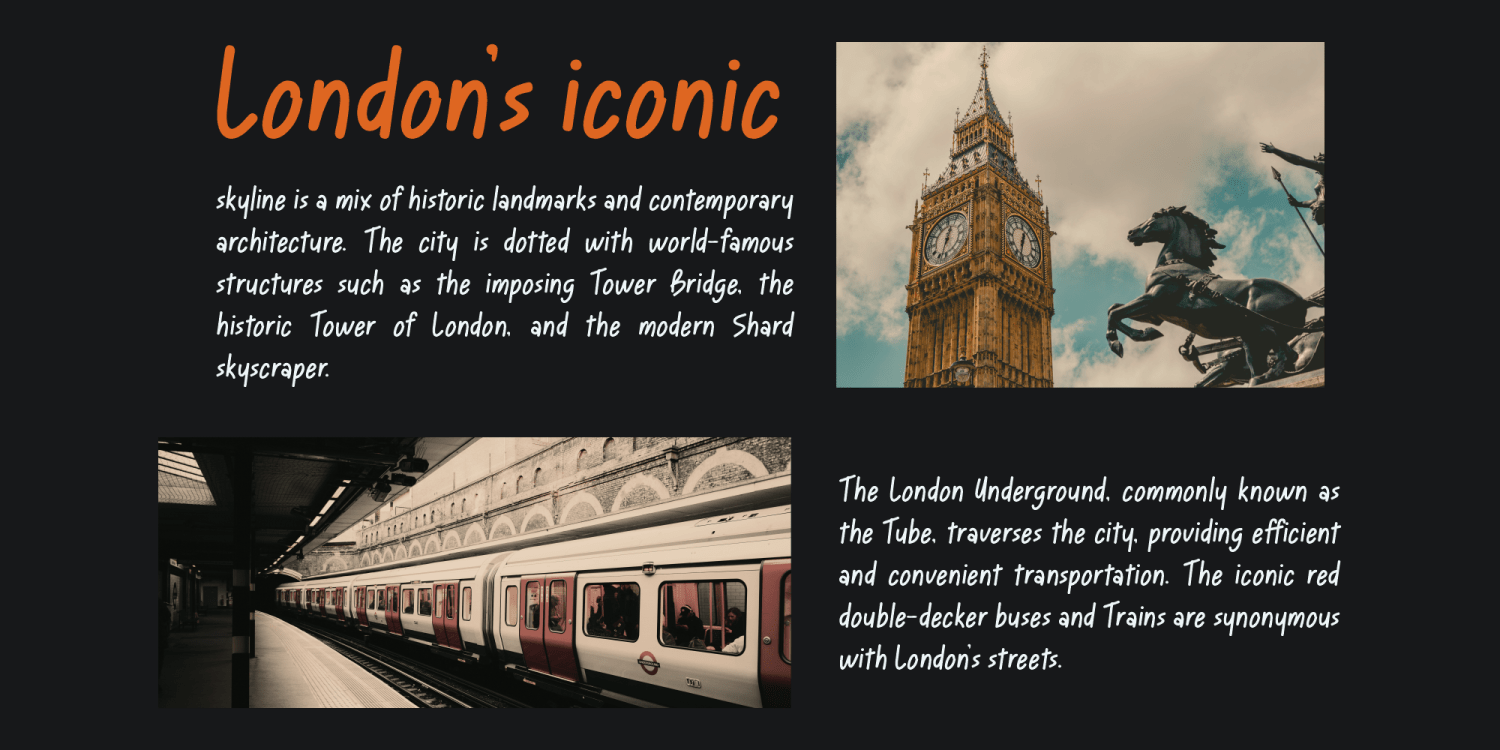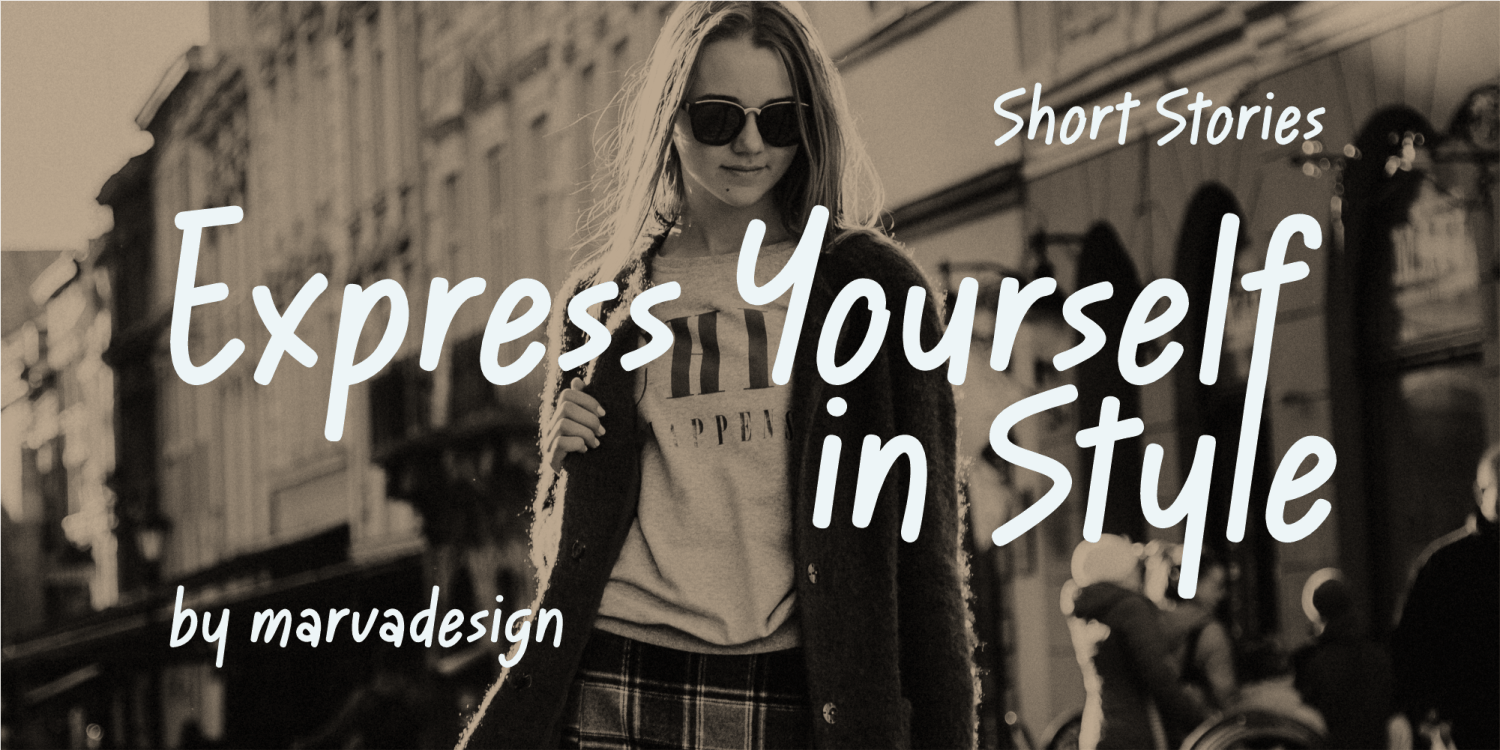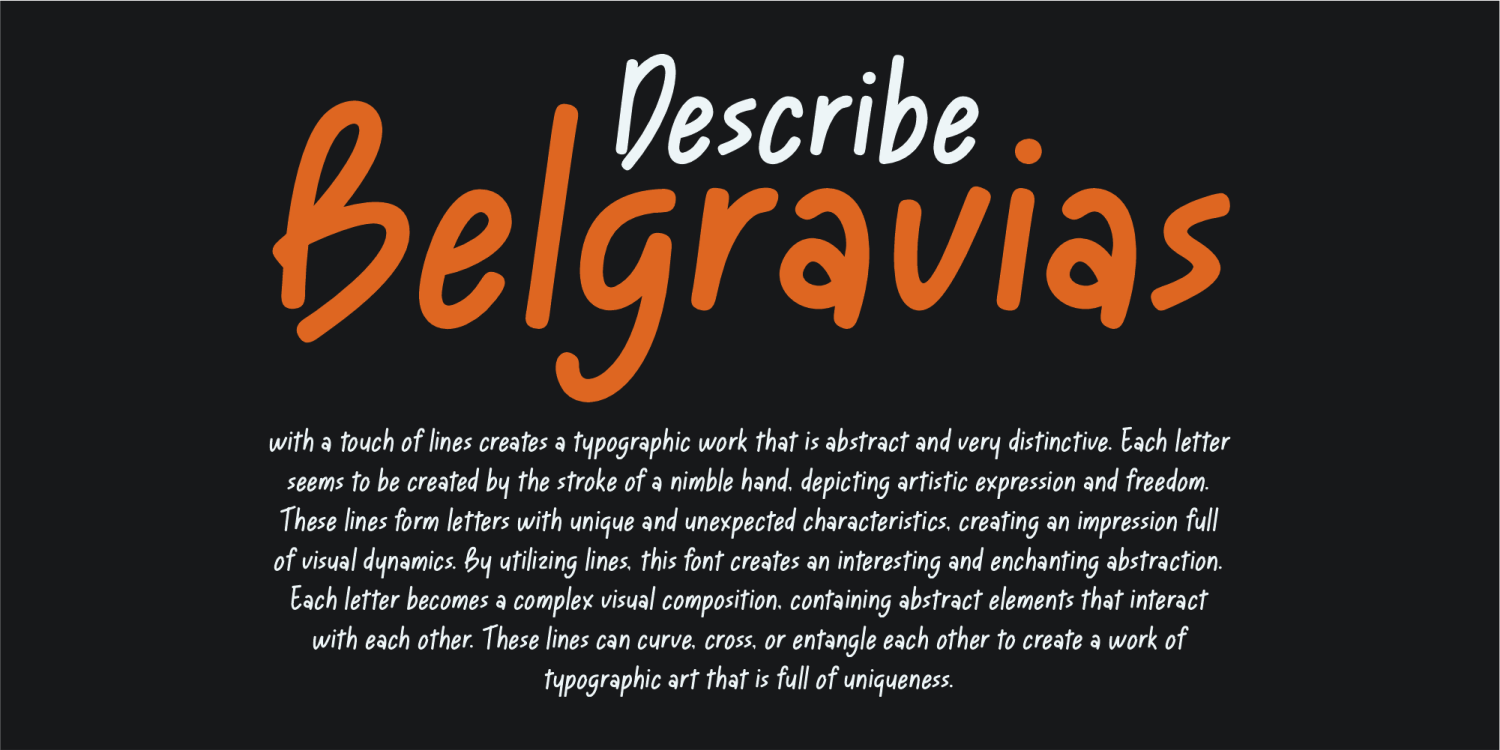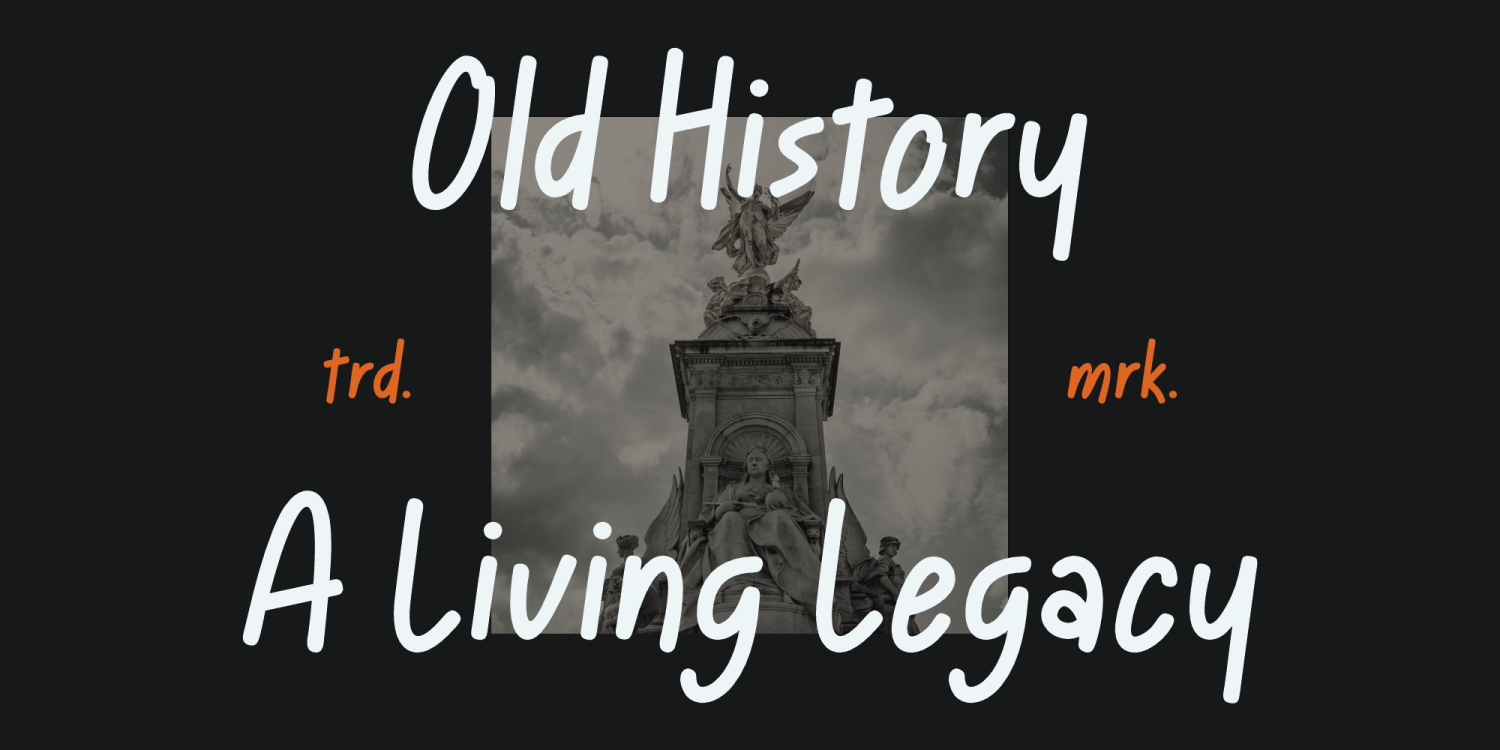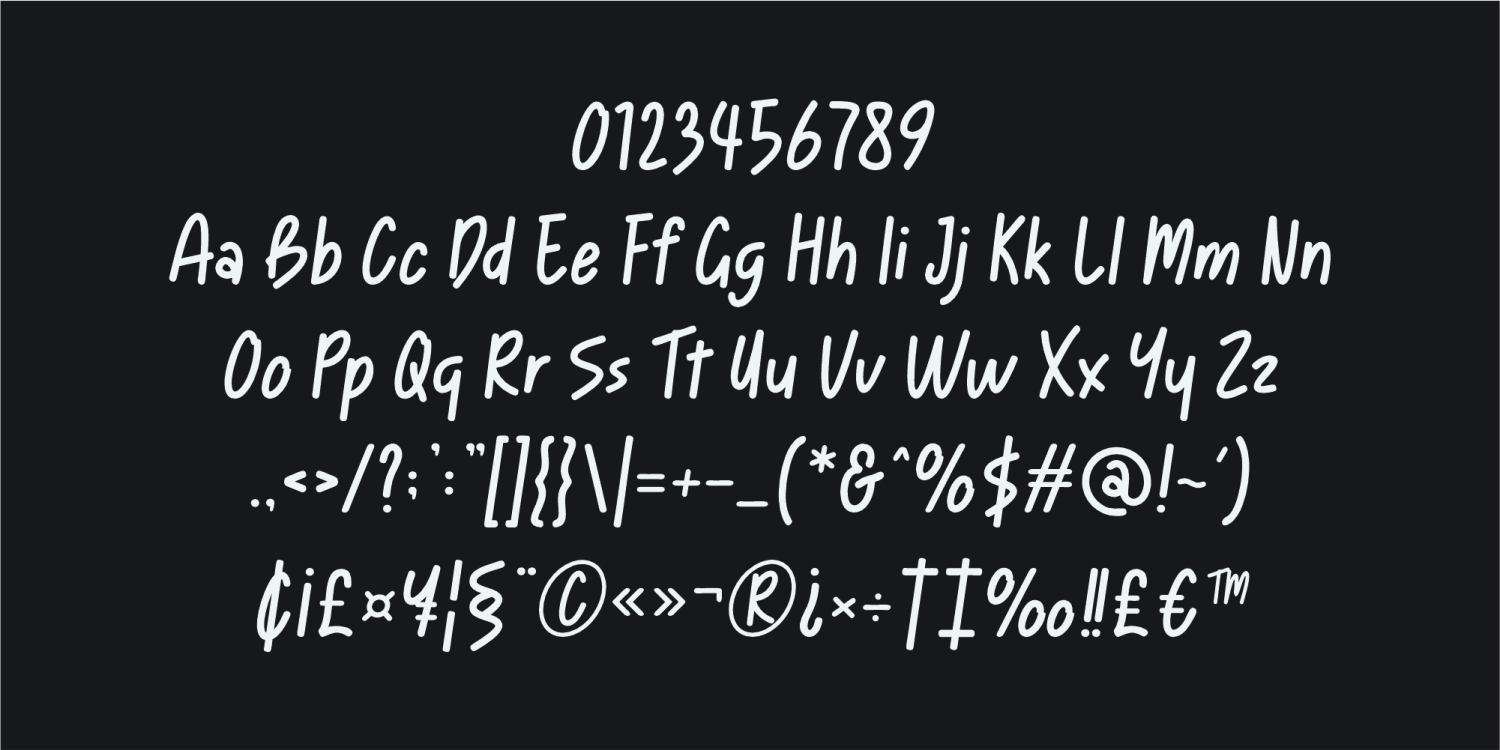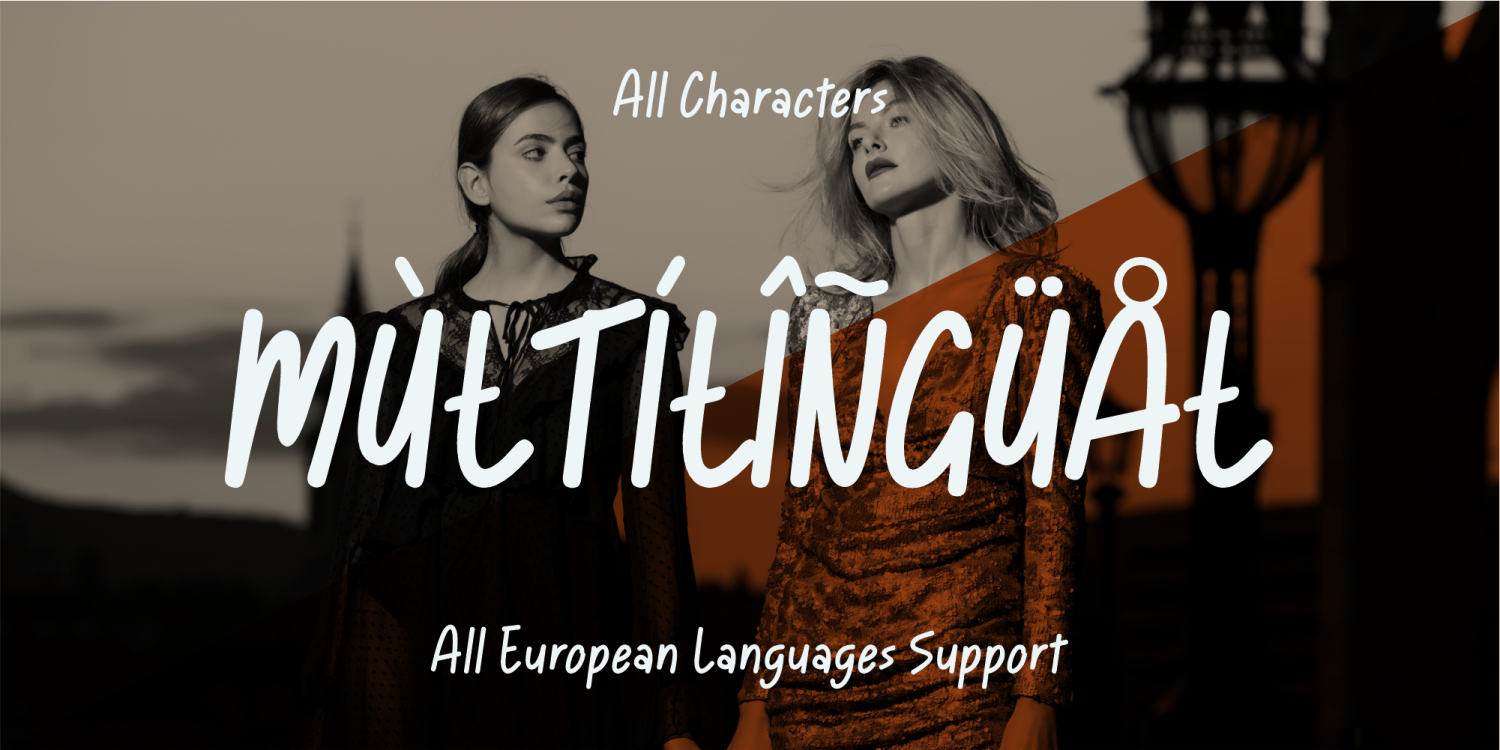
Belgravias
Font Family by Marvadesign
Introducing Belgravias is modern handwritten aesthetic with a smooth, flowing structure that exudes both elegance and informality. The letterforms are carefully crafted with rounded edges, creating a warm and inviting visual appeal. Its organic strokes mimic the natural imperfections of real handwriting, yet maintain a consistent rhythm that ensures readability. The contrast between thick and thin strokes adds a dynamic quality, making the text feel lively and expressive. Despite its casual nature, the font retains a sense of refinement, balancing playfulness with professionalism. This makes it highly versatile, suitable for various applications such as branding, editorial layouts, and digital content. Whether used for headlines or body text, the font seamlessly adapts to different design contexts, enhancing visual engagement with its friendly yet sophisticated charm.